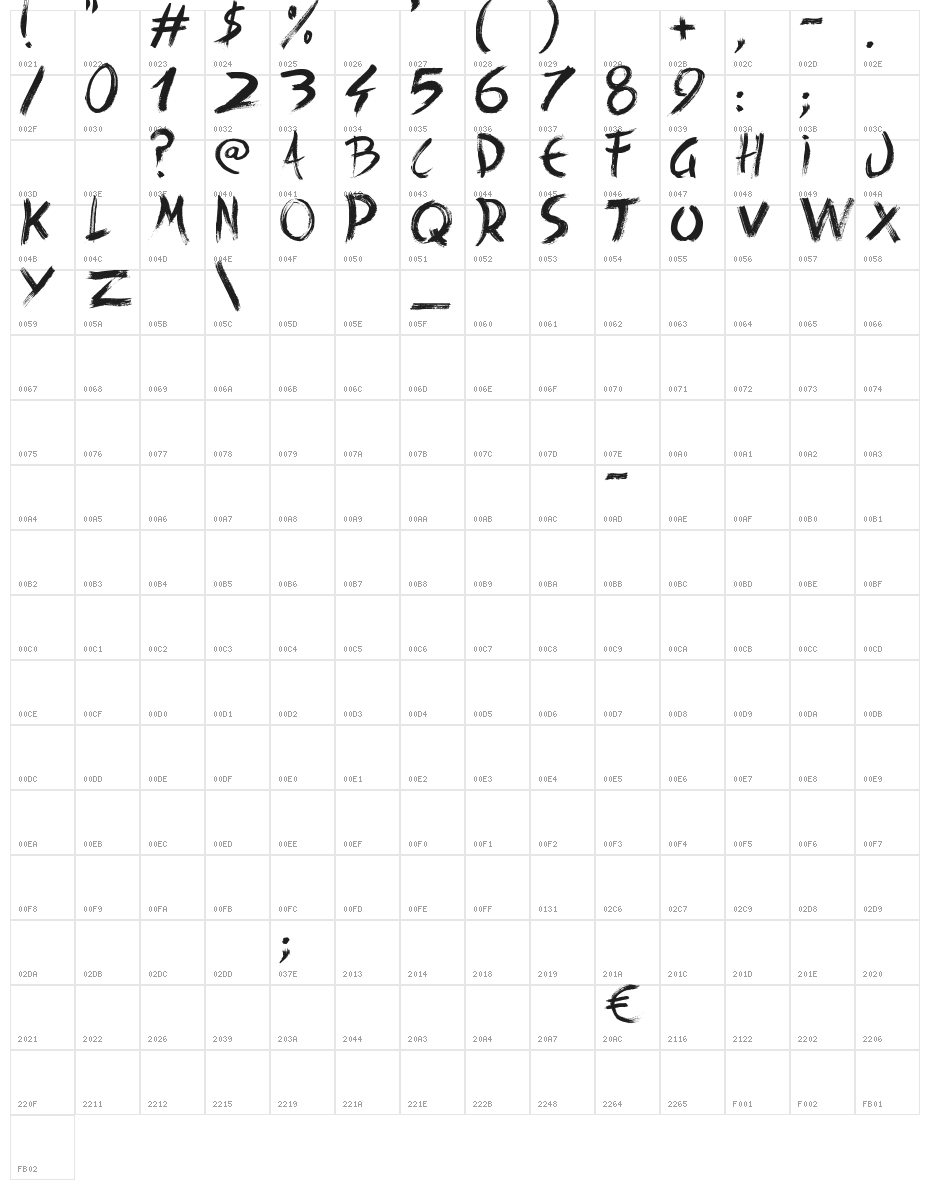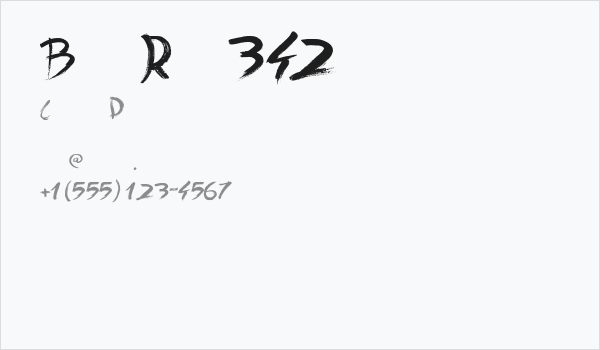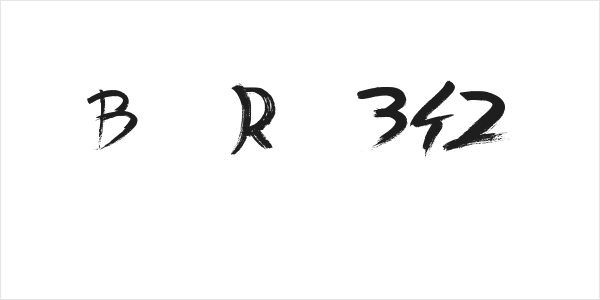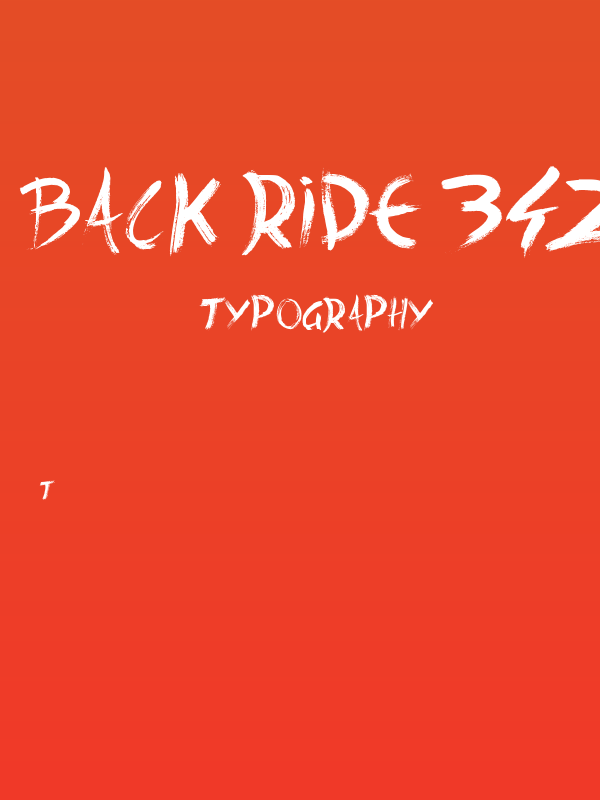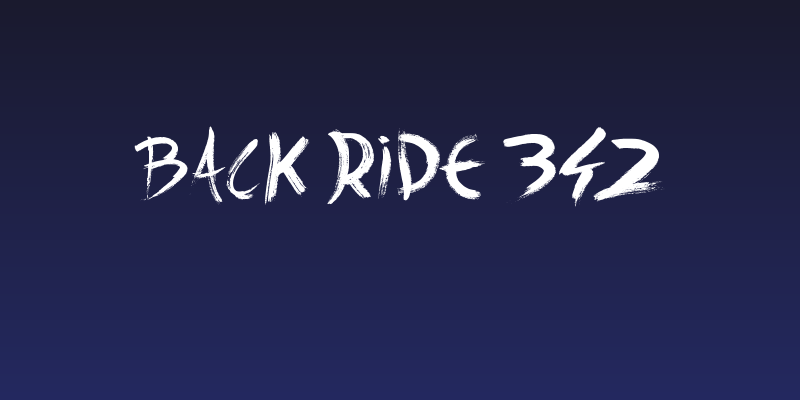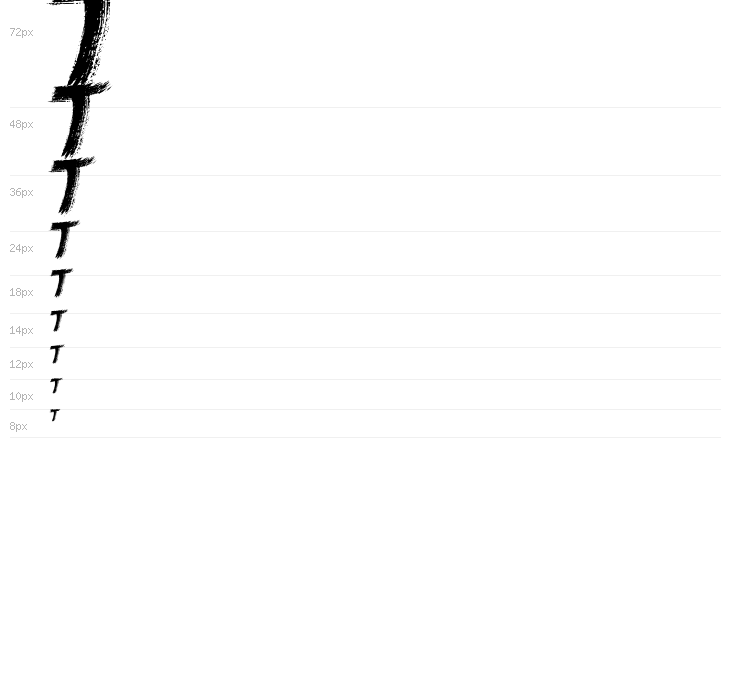
Back Ride 342 Font
Back Ride 342 Description
This font features a bold, expressive brush style that exudes energy and dynamism. The strokes are irregular and textured, giving each character a unique, hand-painted appearance. The uppercase letters are particularly striking, with dramatic angles and a sense of movement. The numerals and special characters maintain this artistic flair, ensuring consistency across all glyphs. This font is ideal for projects that require a bold statement, capturing attention with its artistic and slightly chaotic style.
| Overall Style | Modern, Artistic |
| Proposed Projects | Ideal for posters, album covers, branding materials, and any project that requires a bold, artistic touch. |